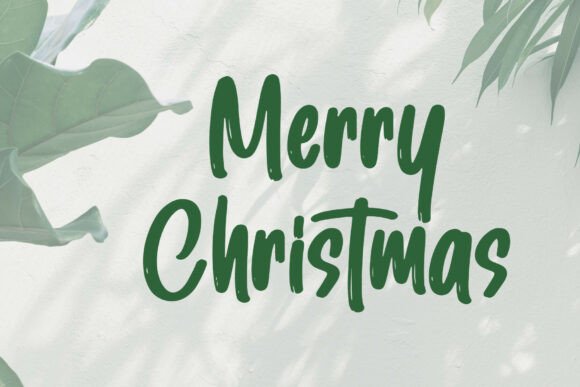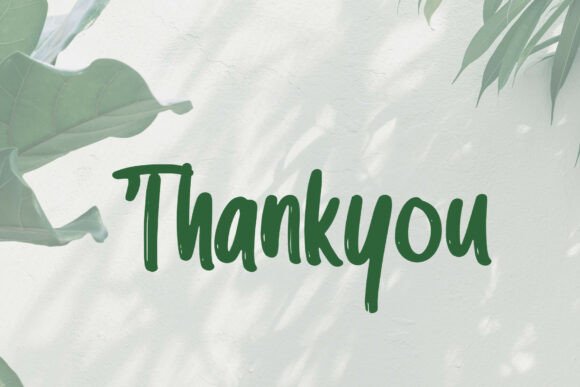
Introduction to Hard Lighter Font
You’ve spent hours pouring your heart into a creative project, from the initial spark of inspiration to the final polished design. But sometimes, no matter how hard you try, it’s missing that certain je ne sais quoi – that unique, authentic touch that sets it apart from the rest. That’s where the right design resource comes in, and for many creatives, it’s the vintage charm of the Hard Lighter Font.
With its hand-drawn, brush-style aesthetic and organic stroke flow, the Hard Lighter Font adds a high-quality, textured appearance that’s impossible to ignore. Its casual slant and uneven baseline lend a handmade warmth, making it the perfect choice for designers seeking to infuse their work with a sense of nostalgia and retro charm. Whether you’re working on a free download project or a commercial design, this versatile font is sure to capture attention and leave a lasting impression.
Key Features of Hard Lighter Font
- High-quality design resource with a unique, modern aesthetic, perfect for creative projects.
- Unique characteristics include a bold, energetic feel and a versatile design that works well in both digital and print media.
Honest Review: Hard Lighter Font
As a designer, I’m always on the lookout for high-quality design resources to elevate my creative projects. Recently, I had the chance to work with the Hard Lighter Font, and I’m excited to share my honest review.
What works well: ✨ The Hard Lighter Font is incredibly versatile and can be used for a wide range of design projects, from digital art to print materials. The font’s sleek and modern design makes it perfect for creating eye-catching headings and titles. The font also comes with a transparent background, making it easy to layer and composite with other design elements.
Overall impression: The Hard Lighter Font is a fantastic addition to any designer’s toolkit. While it may have some limitations, its high quality and versatility make it well worth the investment. I’d definitely recommend it to anyone looking for a reliable design resource.
Tips for Getting the Most Out of Hard Lighter Font
To get the most out of the Hard Lighter Font, experiment with different font sizes, colors, and styles. Use it in combination with other design elements to create a unique and eye-catching design.
The Hard Lighter Font is suitable for a variety of creative projects, including logos, posters, flyers, and social media graphics. Its transparent background makes it easy to use in combination with other design elements, and its high-quality design makes it perfect for professional-looking designs.